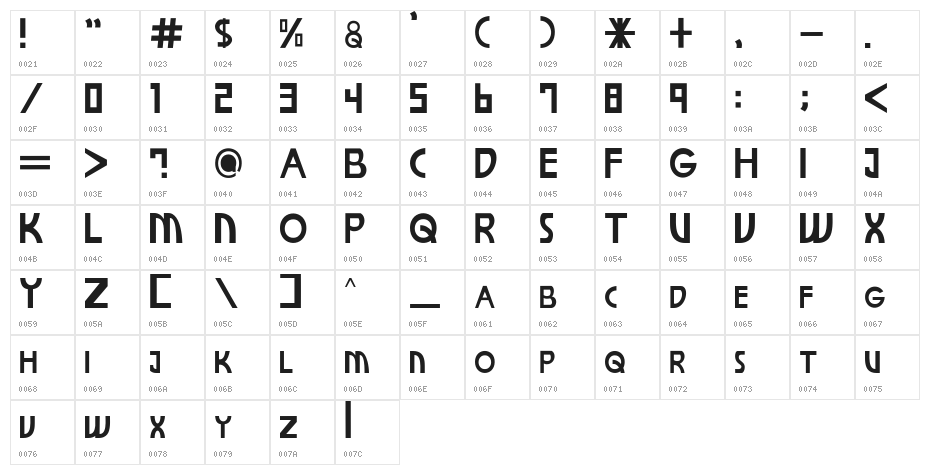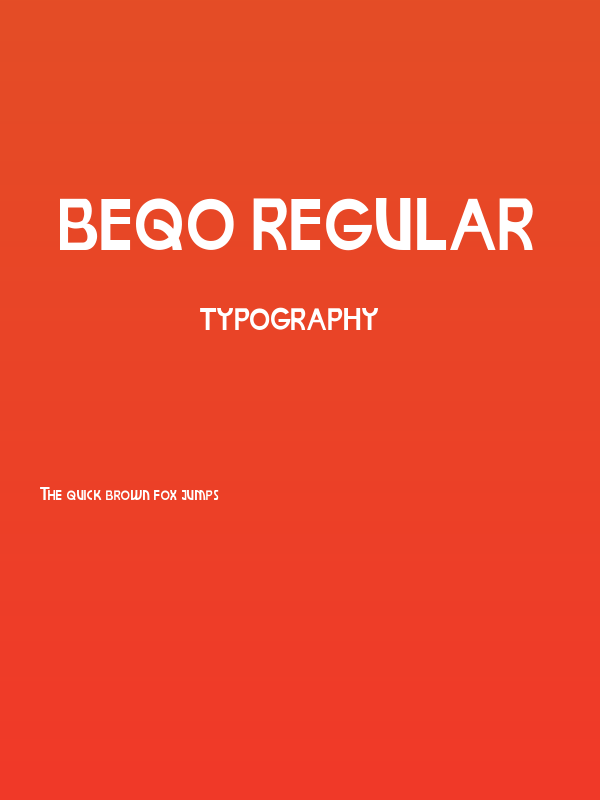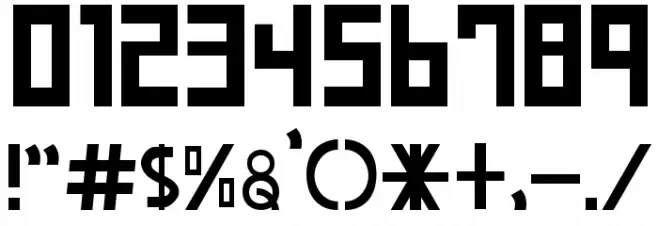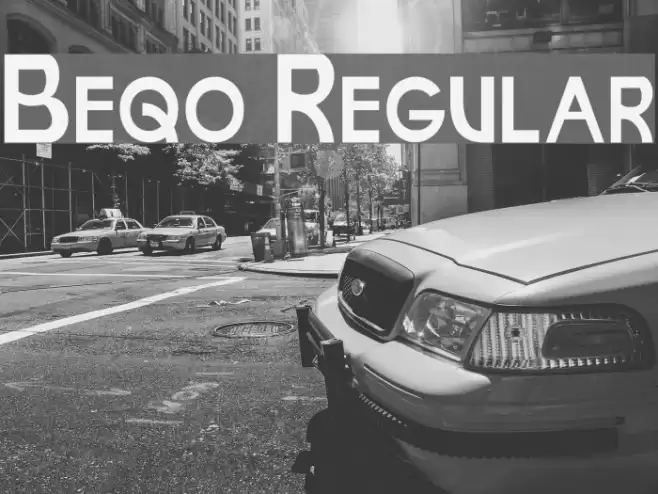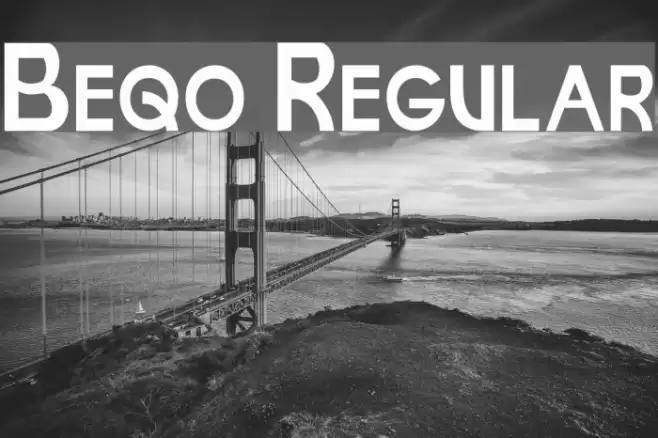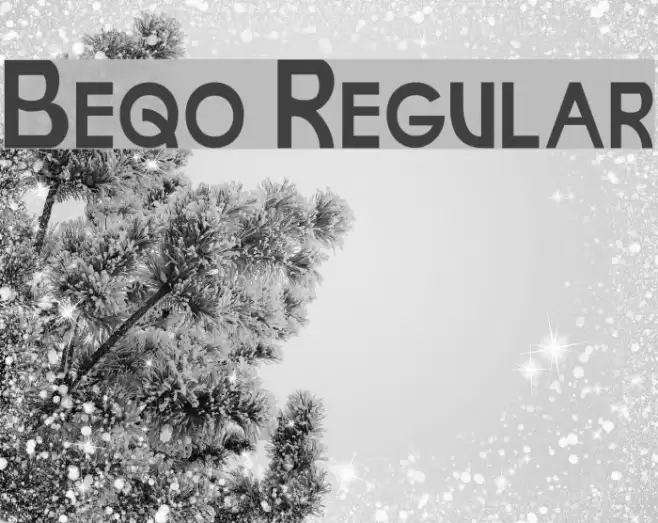
Beqo Regular Font
Beqo Regular Description
This font features a bold and geometric design, characterized by its strong, angular lines and unique shapes. The uppercase letters are particularly striking, with a futuristic and slightly retro feel. The lowercase letters maintain the same boldness, offering a consistent look across all characters. Numbers are equally bold, with a uniform thickness that enhances readability. Special characters are designed to match the overall aesthetic, making them suitable for a variety of uses. The font's design is both modern and versatile, making it ideal for projects that require a strong visual impact.
| Proposed Projects | Ideal for branding, posters, headlines, and any design work that requires a strong, impactful typeface. |